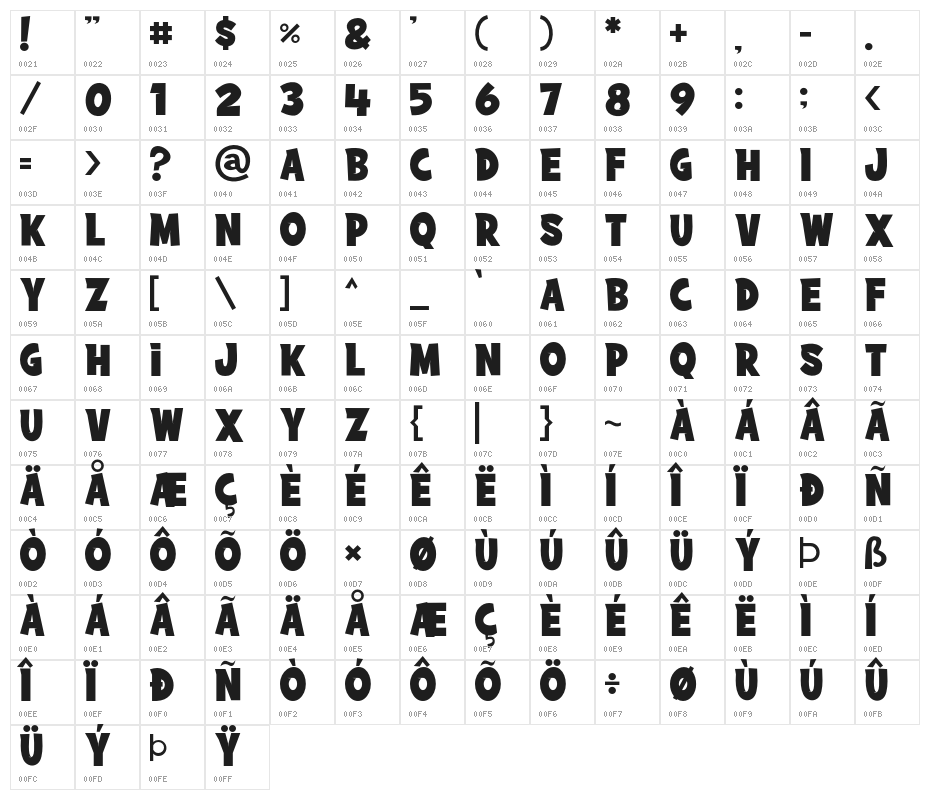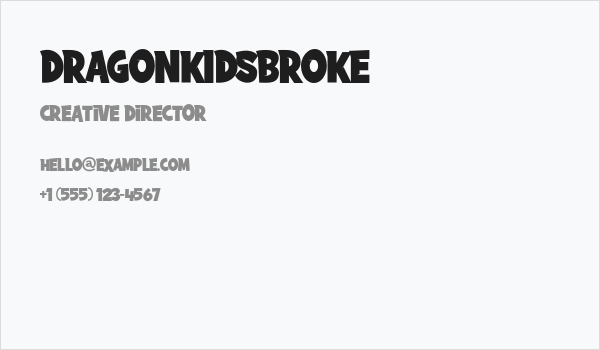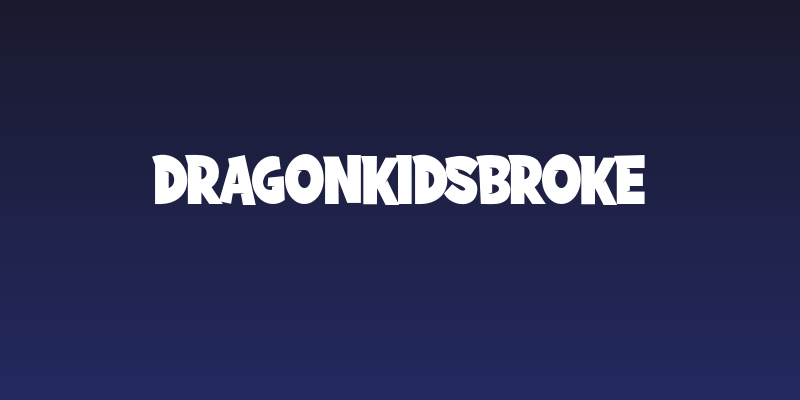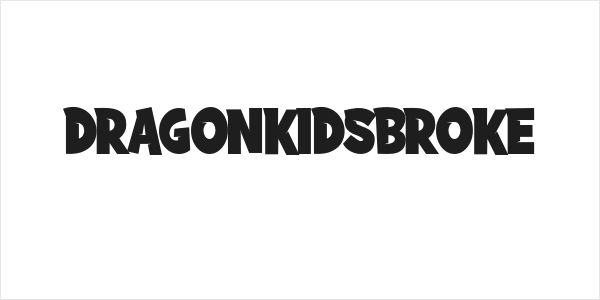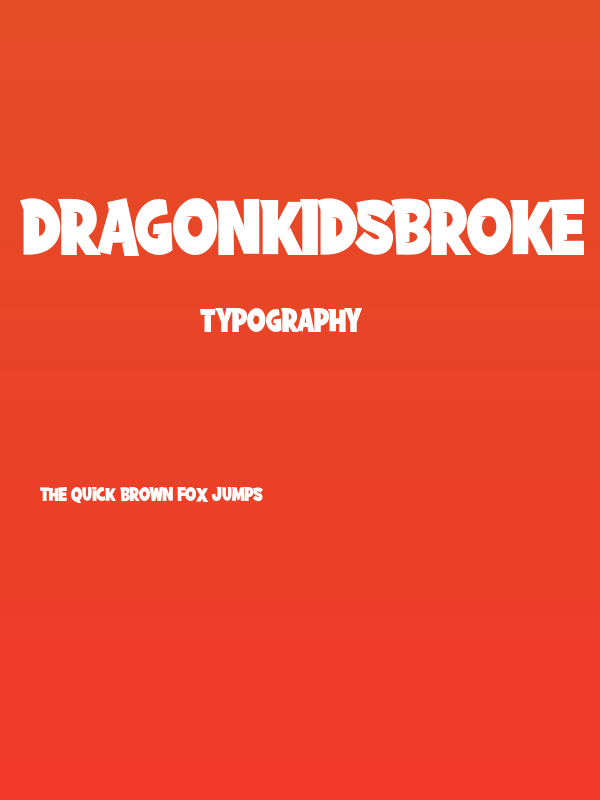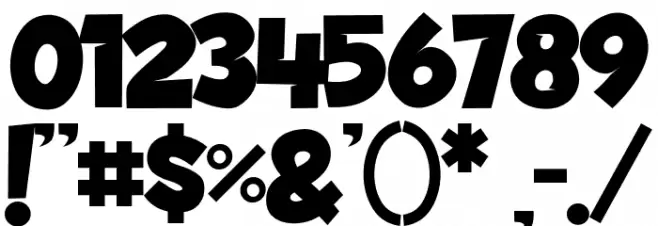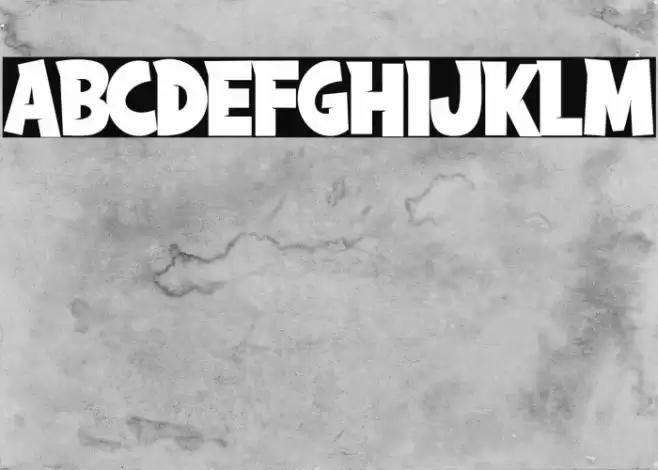
DRAGONKIDSBROKE Font
DRAGONKIDSBROKE Description
This bold and playful font features thick, chunky letters with a slightly irregular shape, giving it a lively and energetic appearance. The uppercase and lowercase letters are consistent in style, maintaining a sense of cohesion throughout the alphabet. The numbers and special characters are equally bold, ensuring they stand out in any design. The font's exaggerated curves and angles add a whimsical touch, making it ideal for projects that require a fun and engaging aesthetic. Its strong presence and unique style make it suitable for eye-catching headlines and creative displays.
| Overall Style | Playful, Whimsical |
| Proposed Projects | Ideal for children's book covers, playful branding, posters, and event invitations. |